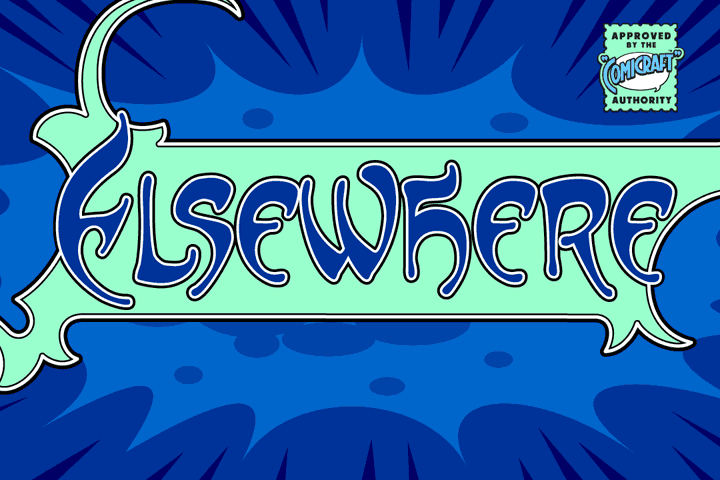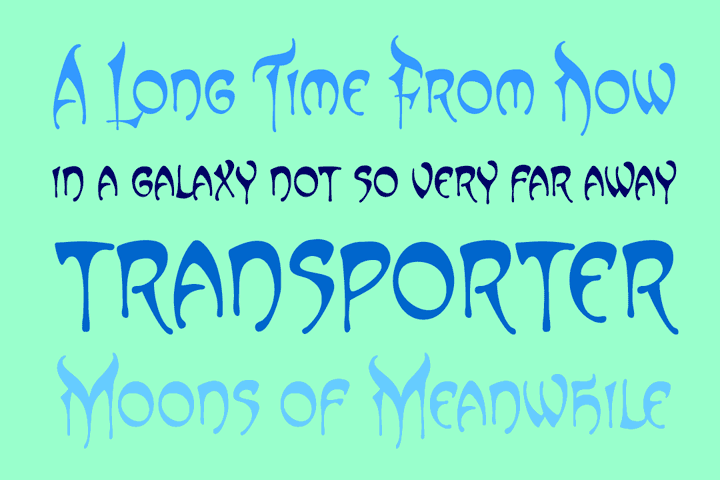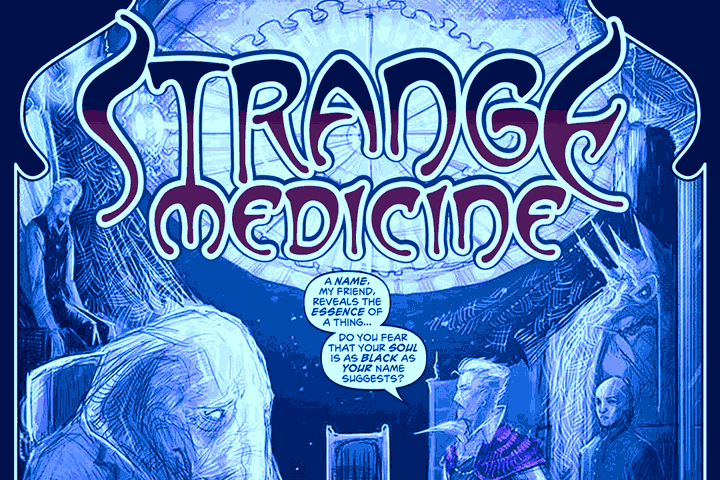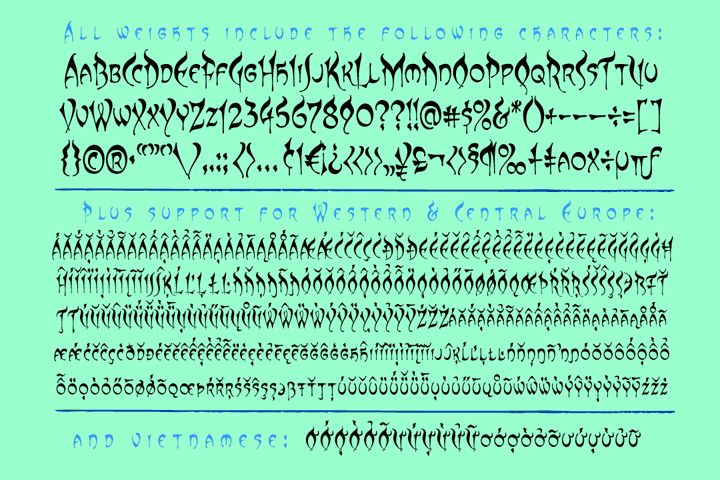
Elsewhere
Someday, a long time from now, in a galaxy not so very far away, you'll find yourself Suddenly transported to the nether- realms of Elsewhere, bathed in the light of the mystic moons of Meanwhile... While you're waiting for that day, check out this font by John 'JG' Roshell. It may not provide you with the same transcendental experience, but JG assures us that it really is the next best thing.
One weight with upper and small cap lowercase characters. Includes support for Western & Central Europe and Vietnamese.